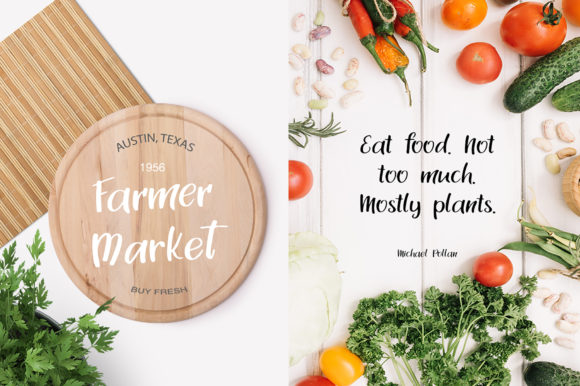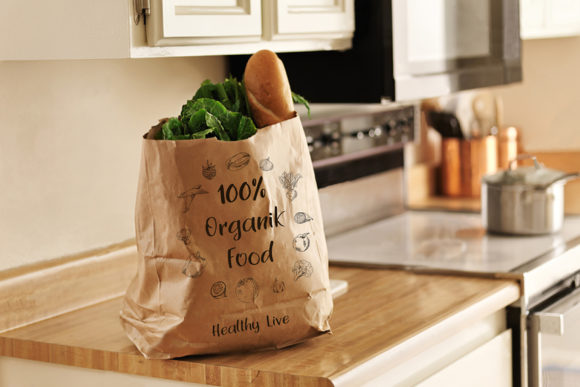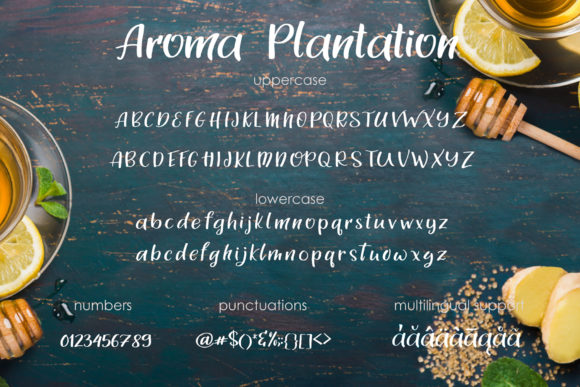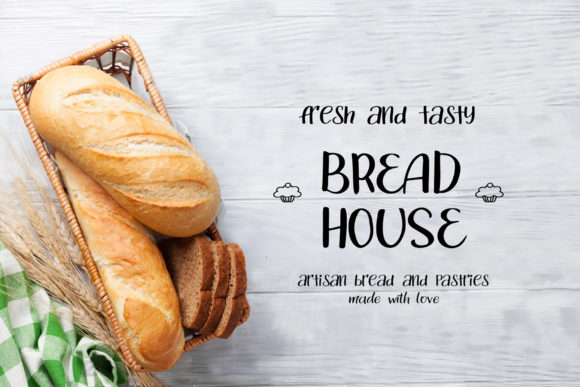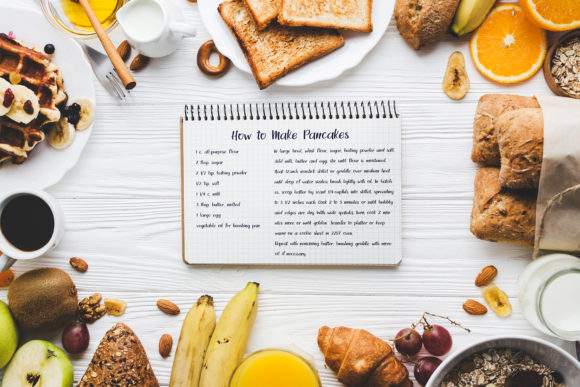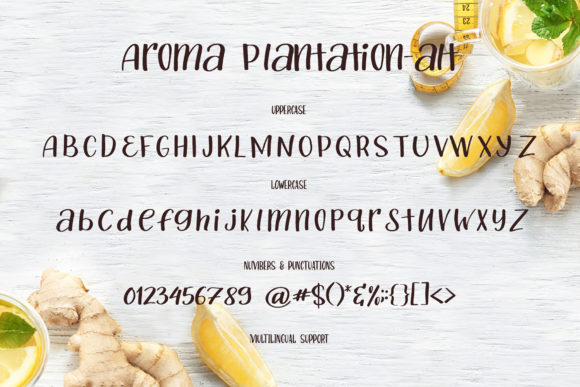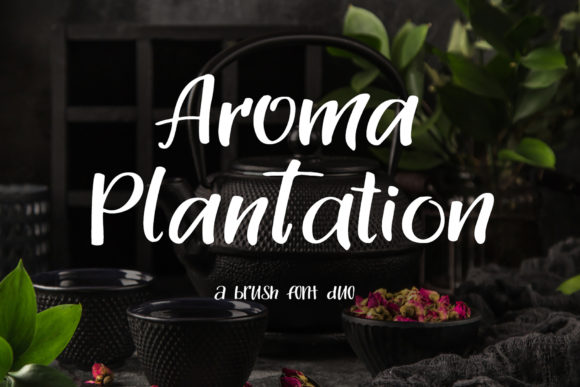
Aroma Plantation Duo Font: Elevate Your Typography with Elegance and Whimsy
In the realm of typography, few fonts manage to capture the essence of elegance, whimsy, and dramatic flair as effectively as the Aroma Plantation Duo Font. This exquisite hand-lettering typeface is not just a font; it’s an experience. With its clear style, good mood, and fluid movements, Aroma Plantation allows designers and crafters to infuse their projects with a touch of sophistication and charm instantly.
The Essence of Aroma Plantation Duo Font
The Aroma Plantation Duo Font stands out with its unique blend of classic elegance and modern whimsy. It’s meticulously designed to bring out the best in your creative projects, whether you’re branding a cafe, creating a recipe blog, or designing decorative materials for a restaurant. The duo font comes with a primary set of letters, numbers, and punctuation, alongside a special set of 26 characters focused on food. This comprehensive approach enables designers to play with textures, styles, and themes, offering endless possibilities for creative expression.
Crafting Beautiful Typography
One of the most significant advantages of the Aroma Plantation Duo Font is its ability to create beautiful, hand-made typography instantly. In today’s digital age, where uniformity and simplicity often dominate, adding a hand-crafted feel to your designs can make them stand out. This font is perfect for:
- Cafe and Restaurant Branding: Create a unique identity for your business with elegant and inviting typography.
- Recipe Blogs and Websites: Add a personal touch to your culinary stories and recipes, making them more engaging for your audience.
- Food Packaging and Menus: Elevate your product packaging and menu designs with sophisticated and eye-catching typography.
The Food-Themed Characters
A distinctive feature of the Aroma Plantation Duo Font is the inclusion of 26 food-themed characters. These characters open up a world of creativity for designers working on food-related projects. Imagine being able to add illustrations of your favorite foods directly into your typography, making your designs more vibrant and thematic. Whether it’s pastries, fruits, or beverages, these characters help tell a story through your typography, making it more engaging and visually appealing.
Why Choose Aroma Plantation Duo Font?
Choosing the right font for your project can be daunting, given the vast options available. However, the Aroma Plantation Duo Font offers several compelling reasons to be your top pick:
- Versatility: Suitable for a wide range of projects, from digital blogs to print materials.
- Elegance: Adds a touch of sophistication and class to your designs.
- Creativity: Offers ample opportunities for creative expression with its unique characters and hand-lettered style.
- Easy to Use: Seamlessly integrates into your design workflow, making it easy to create stunning typography.
The Aroma Plantation Duo Font is more than just a typeface; it’s a tool for creative expression and branding. Its elegant style, combined with the whimsy of food-themed characters, makes it an invaluable asset for designers and crafters looking to elevate their projects. Whether you’re aiming to create a brand identity for your cafe, enhance your blog with beautiful typography, or simply explore new creative avenues, Aroma Plantation Duo Font is your gateway to stunning, hand-made typography. Embrace the elegance and whimsy it offers, and watch your designs transform into captivating visual stories.